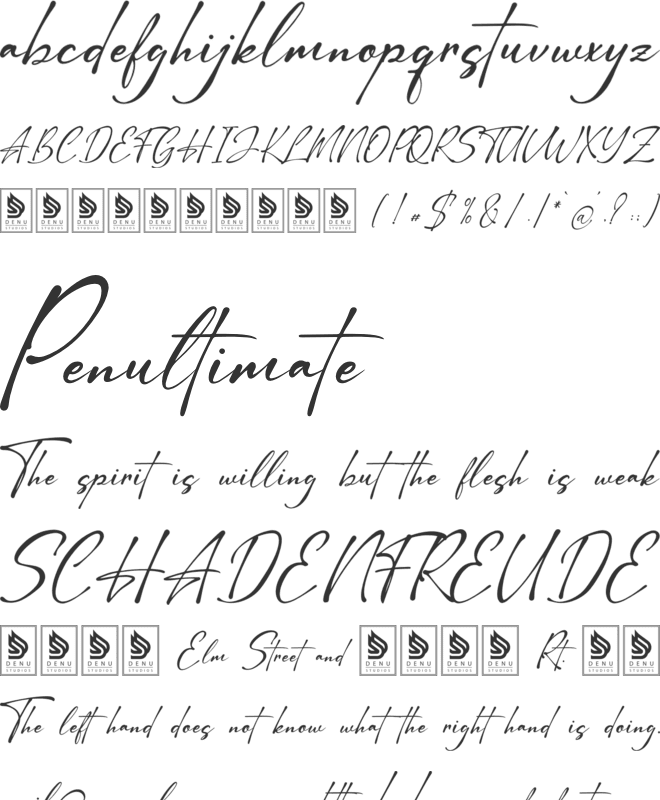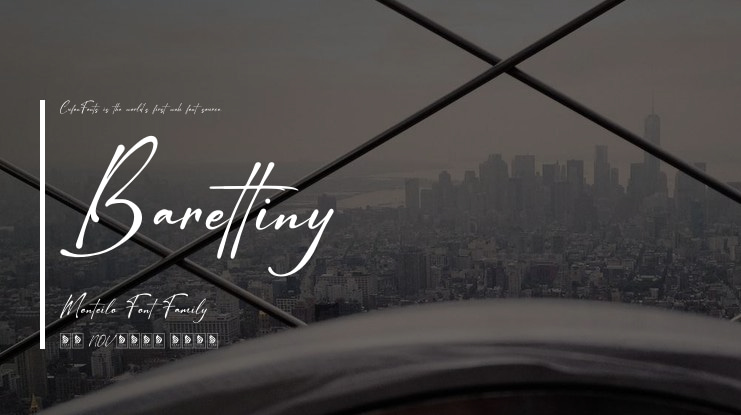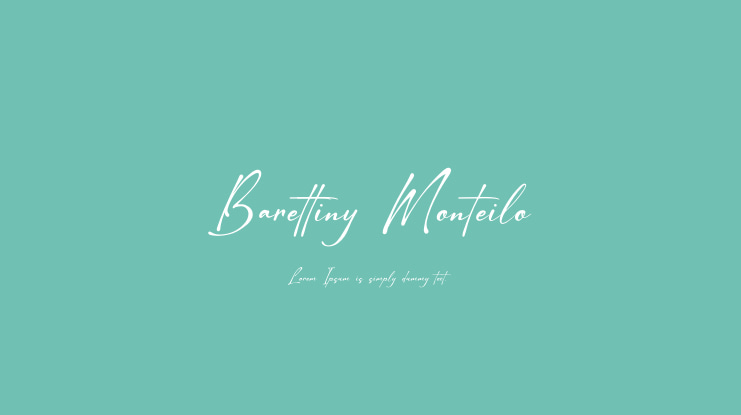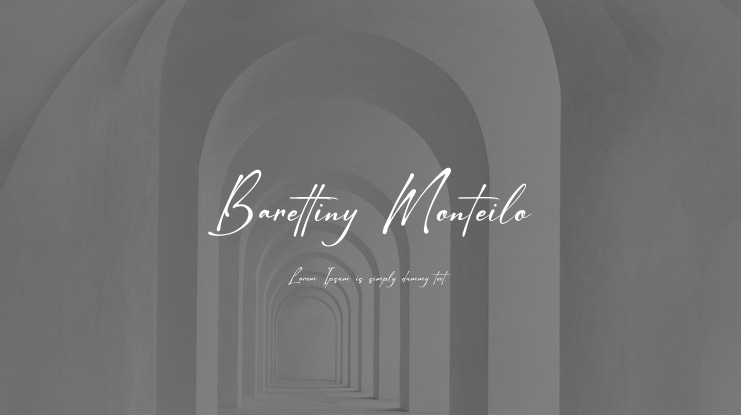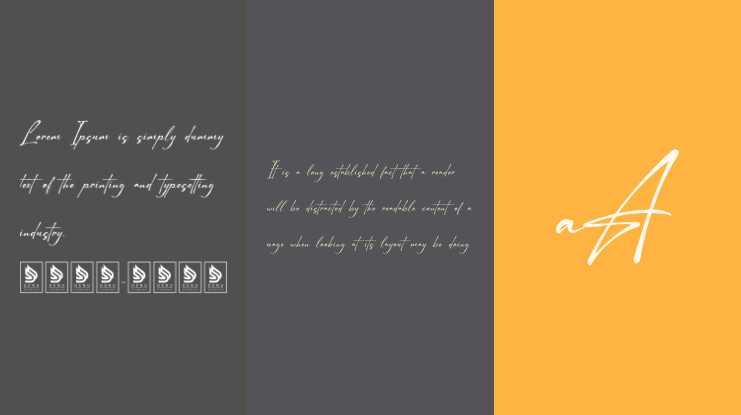
Barettiny Monteilo is a handwritten script font that is perfect for various projects including logos, branding, homeware designs, packaging, quotes, posters, t-shirts, book covers, invitations, and more that require a personal touch.